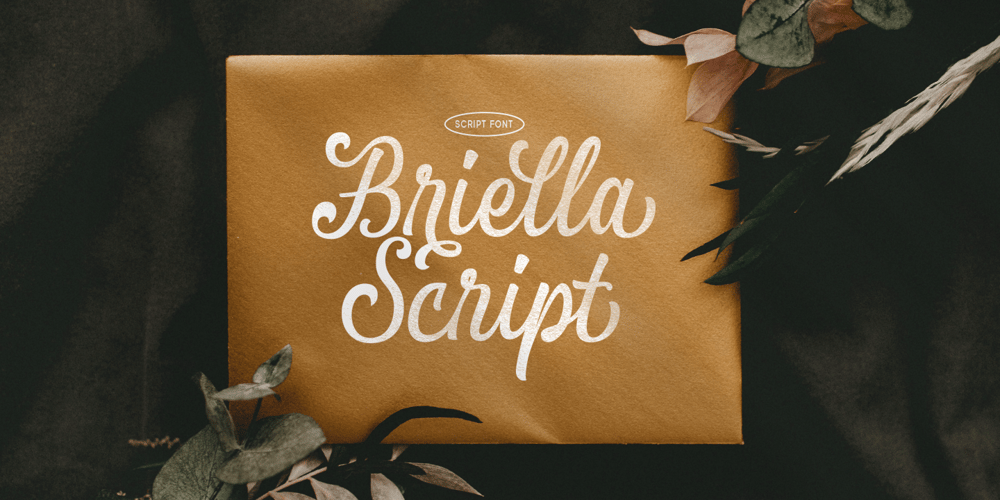
Briella Script
Briella Script font
Briella Script Font Family was designed by Hendry Juanda and published by Letterhend. Briella Script contains 2 styles and family package options. Briella Script is a beautiful and classy script. This font perfectly made to be applied especially in logo, and the other various formal forms such as invitations, labels, logos, magazines, books, greeting / wedding cards, packaging, fashion, make up, stationery, novels, labels or any type of advertising purpose.Features : uppercase & lowercase numbers and punctuation multilingual ligatures alternates swashes PUA encoded We highly recommend using a program that supports OpenType features and Glyphs panels like many of Adobe apps and Corel Draw, so you can see and access all Glyph variations.